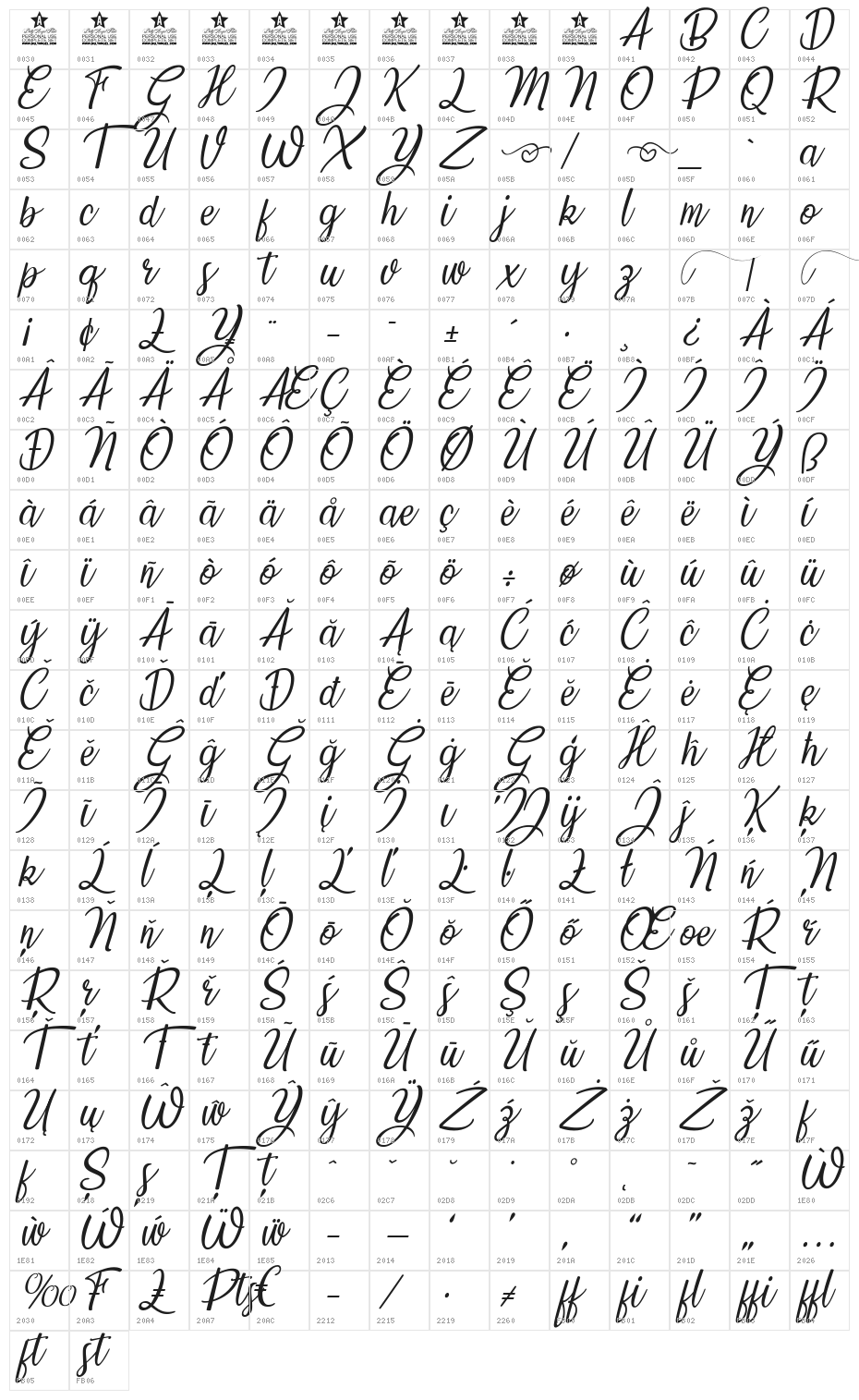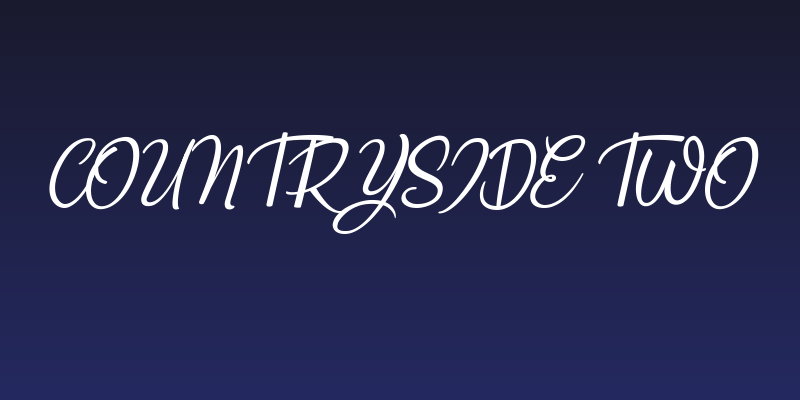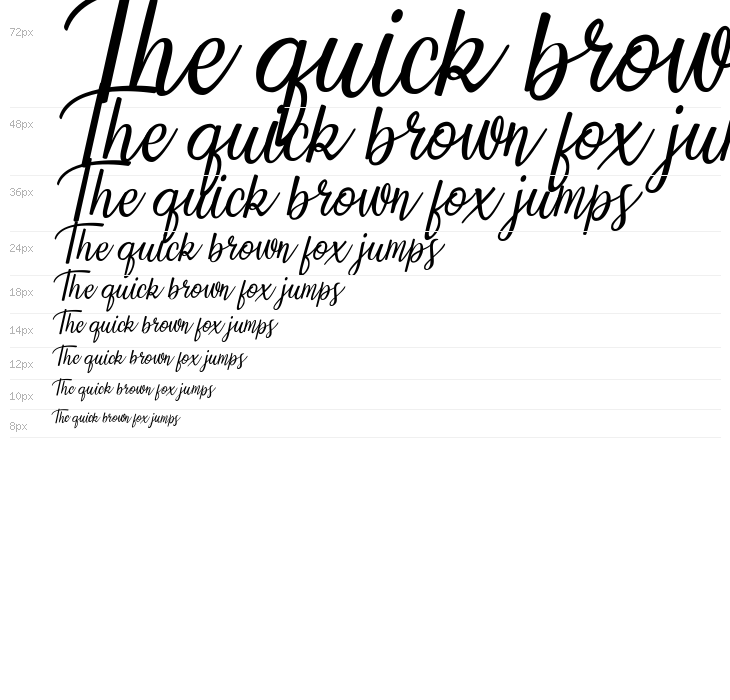
Countryside two Font
This font features a flowing, cursive style that exudes elegance and sophistication. The uppercase letters are tall and gracefully slanted, with smooth curves and loops that create a sense of fluidity. The lowercase letters maintain a consistent style, with rounded forms and connected strokes that enhance the script-like appearance. The numerals are designed to match the overall aesthetic, with a similar slant and curvature. Special characters such as $, ?, &, %, !, #, *, and = are included, each crafted to blend seamlessly with the rest of the font. The overall impression is one of refined beauty, making it suitable for projects that require a touch of class and elegance.
| Overall Style | Elegant |
| Use Case | Logos, Invitations, Decorative headings |
| Proposed Projects | Ideal for wedding invitations, elegant branding, personal signatures, and decorative headings. |